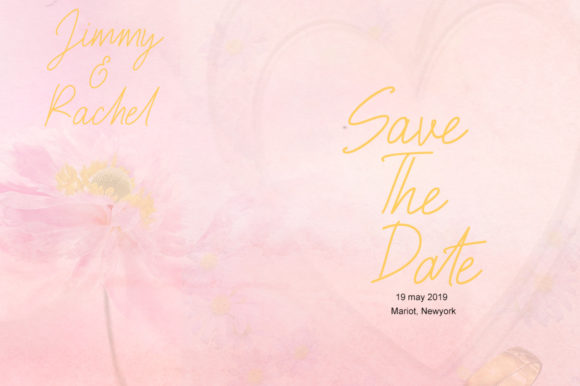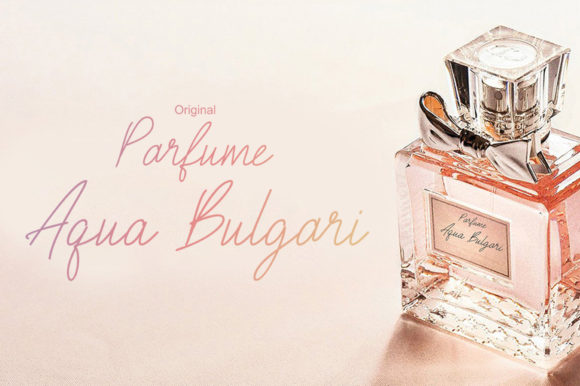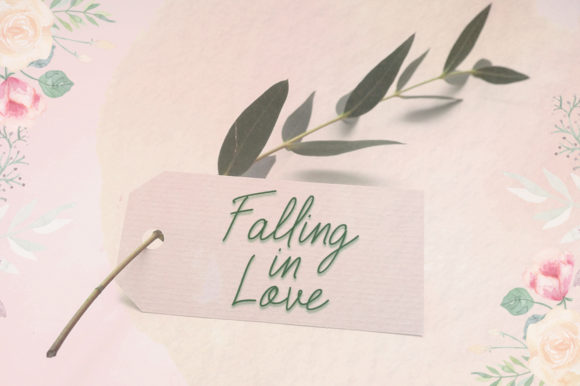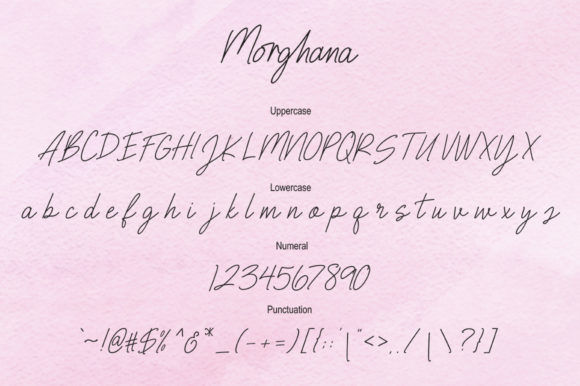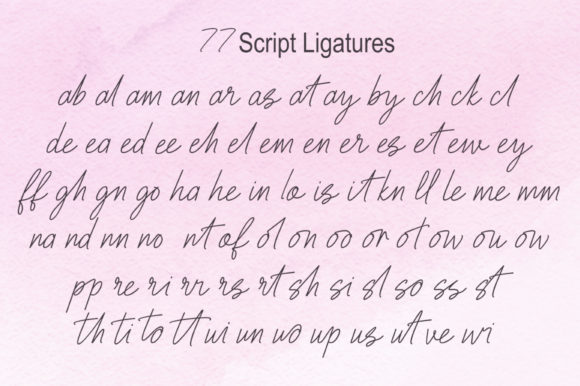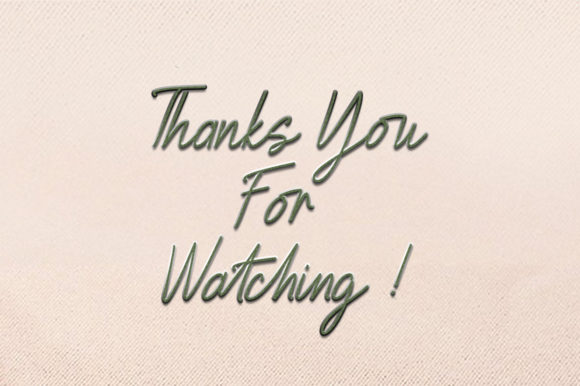
HomeScript FontsMorghana Font Script Fonts Morghana Font FacebookXPinterestWhatsApp Morghana Font Poster 2 Morghana Font Poster 3 Morghana Font Poster 4 Morghana Font Poster 5 Morghana Font Poster 6 Morghana Font Poster 7 About Morghana Font Morghana is a sweet and simple script that radiates life. Get inspired by this lovely font! DOWNLOAD NOW People also explored Taro Flowers Font Organic Font Hypnuseos Gumara Font Dark Font Witch Beauty Font Heroe Font The Story Font Axulmur Vaur Font 265 0 TagsMorghana Font Previous articleVallentino FontNext articleHappy Snow Font LEAVE A REPLY Cancel reply Comment: Please enter your comment! Name:* Please enter your name here Email:* You have entered an incorrect email address! Please enter your email address here Website: Save my name, email, and website in this browser for the next time I comment. Personal Use Free Omellia Personal Use Free Read more about this font Lynoselt Personal Use Free Read more about this font Catandra Script Personal Use Free Read more about this font Love Ya Personal Use Free Read more about this font BLOG Free vs Paid Fonts: Why Investing in Premium Fonts Is Worth It Free vs Paid Fonts: Why Premium Fonts Are Worth It in 2025 The debate of free vs paid fonts continues in the design world. While... Top 7 Google Fonts Alternatives for Faster and Privacy-Friendly Web Design (2025) 5 Fonts That Will Dominate Design Trends in 2026 The 10 Best Handwriting Fonts to Add Personality to Your Designs